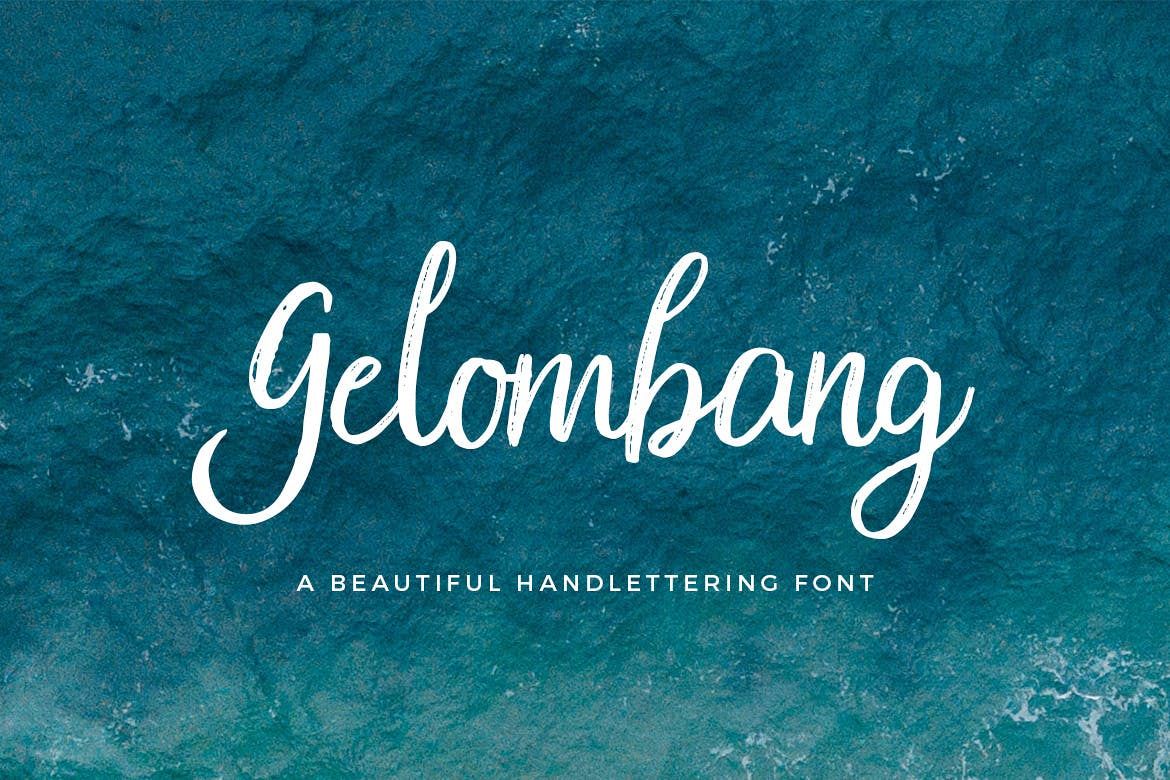
Gelombang Script
Gelombang-Regular
Gelombang font is a modern calligraphy font. Gelombang is beautiful for logotype, website header, fashion design, wedding card design and many more. Gelombang comes with elegant style, it contains a full set of lower & uppercase letters, a large range of punctuation, numerals, and multilingual support